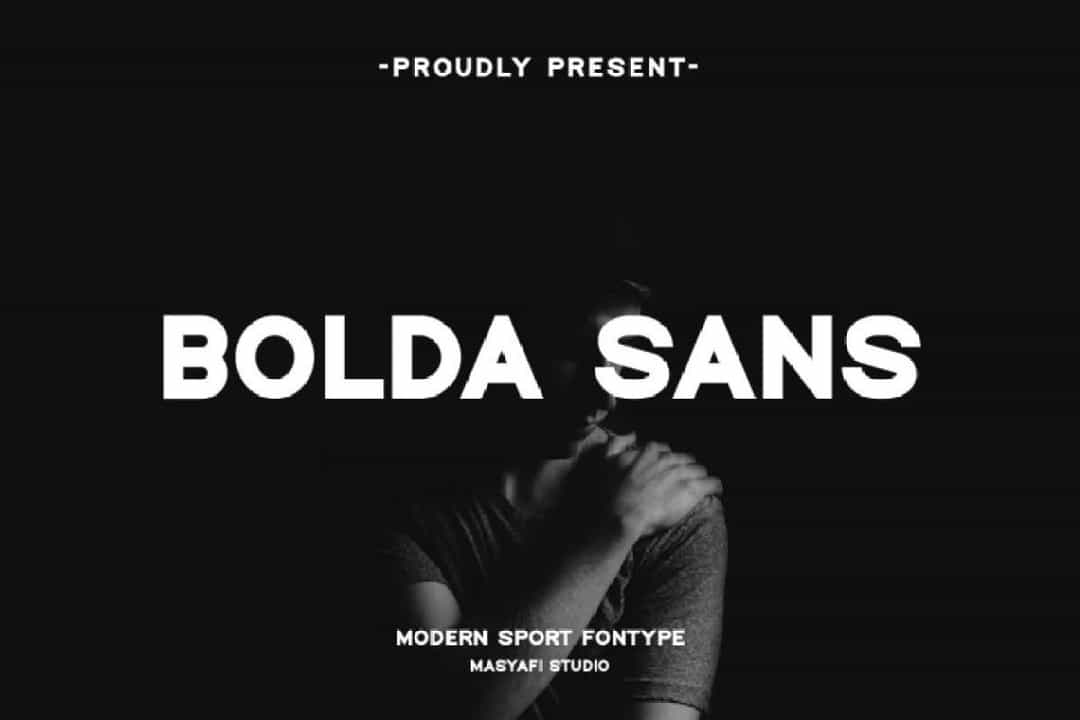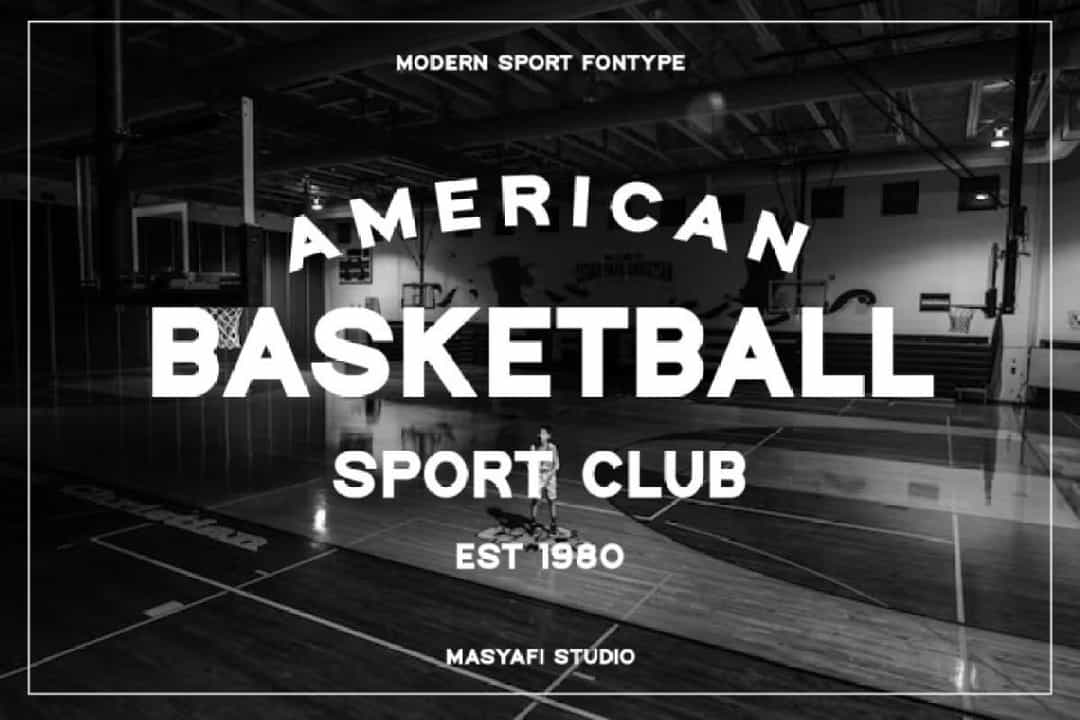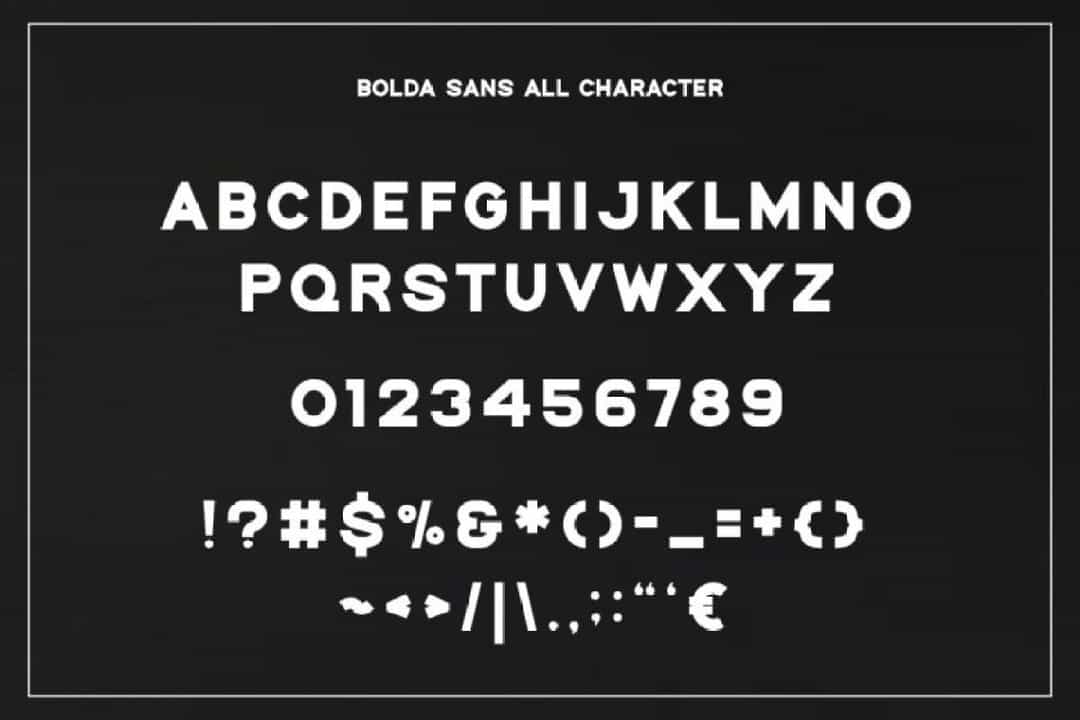
Bolda Sans is an elegant sports-inspired sans-serif font designed with professional modern masculine appeal that is ideal for apps, websites, crafts & apparel products printing, photography projects and any innovative ideas that need modern masculine appeal.